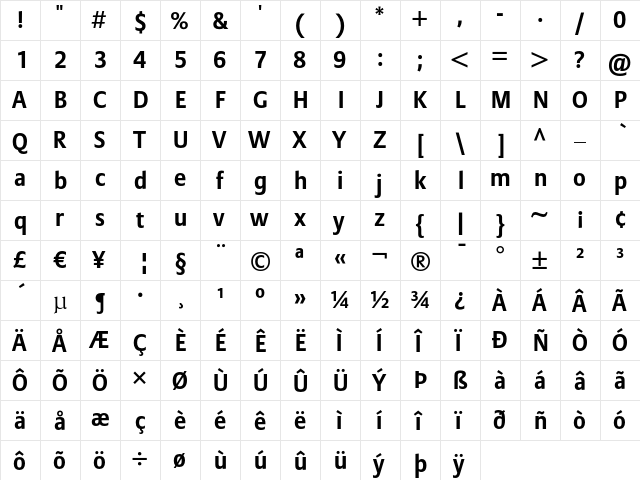
AllianzSans Bold
Design Context for AllianzSans Typeface
AllianzSans takes a measured approach to typography — its balanced proportions and neutral character make it a reliable workhorse for both digital and print work. The heavy weight commands attention and anchors typographic hierarchies.